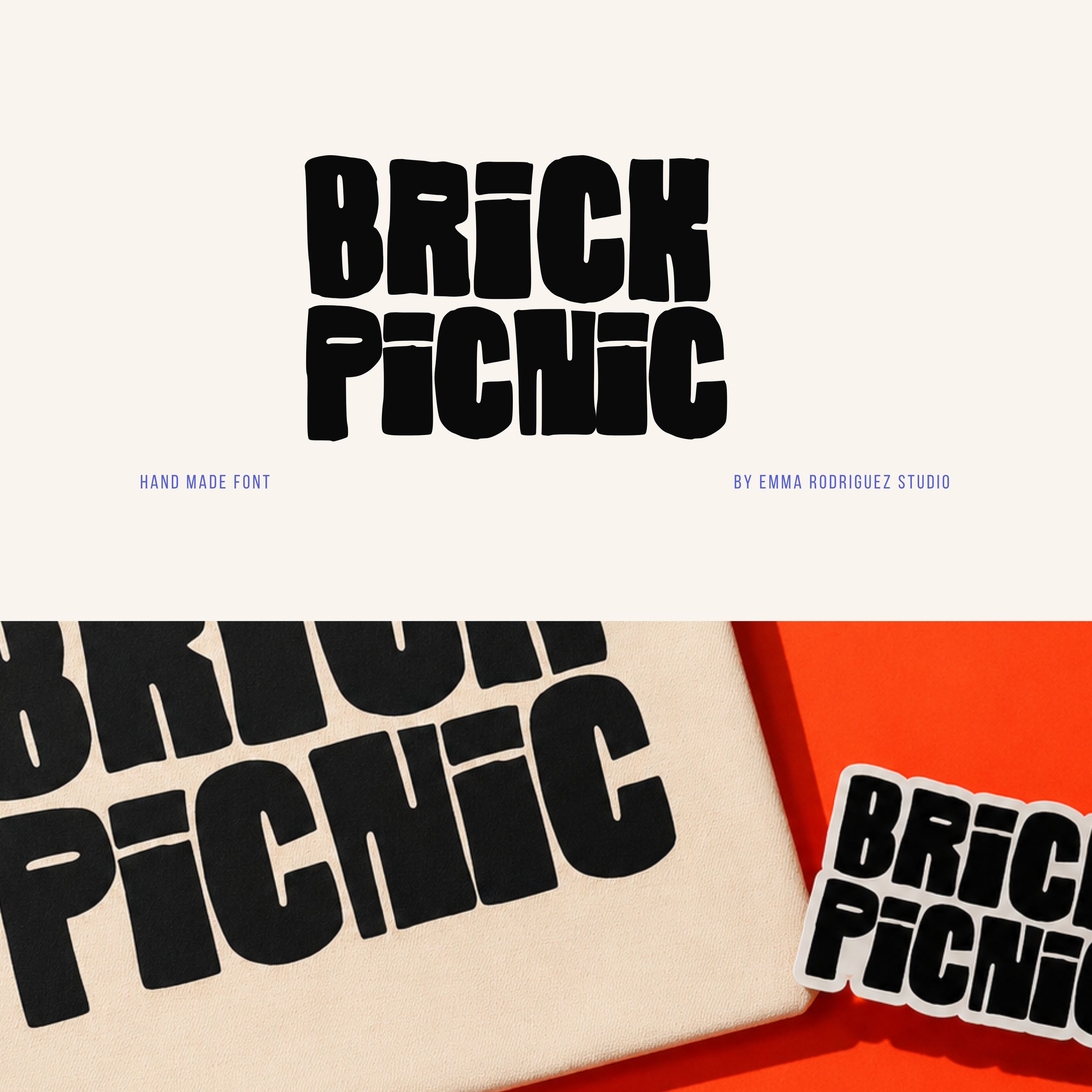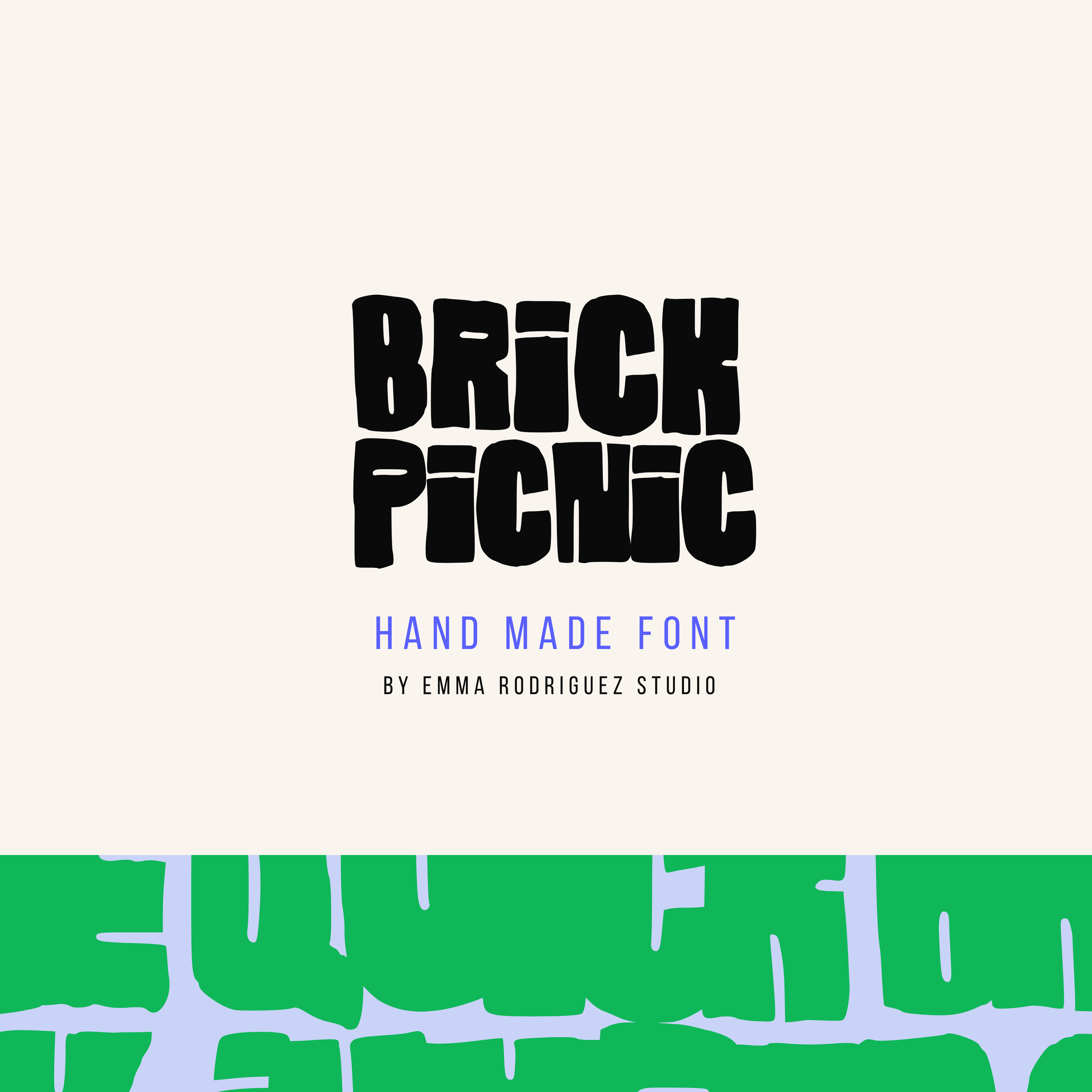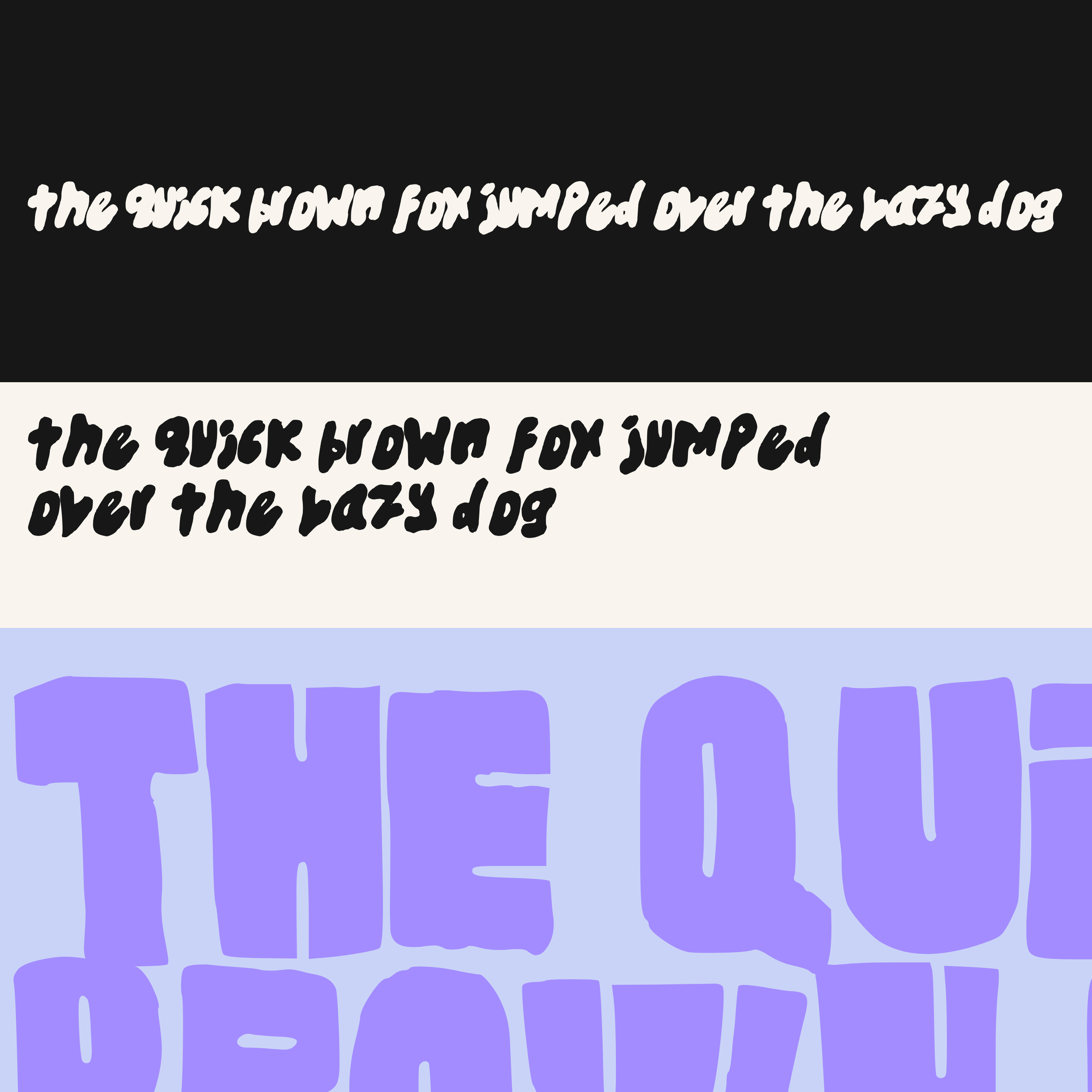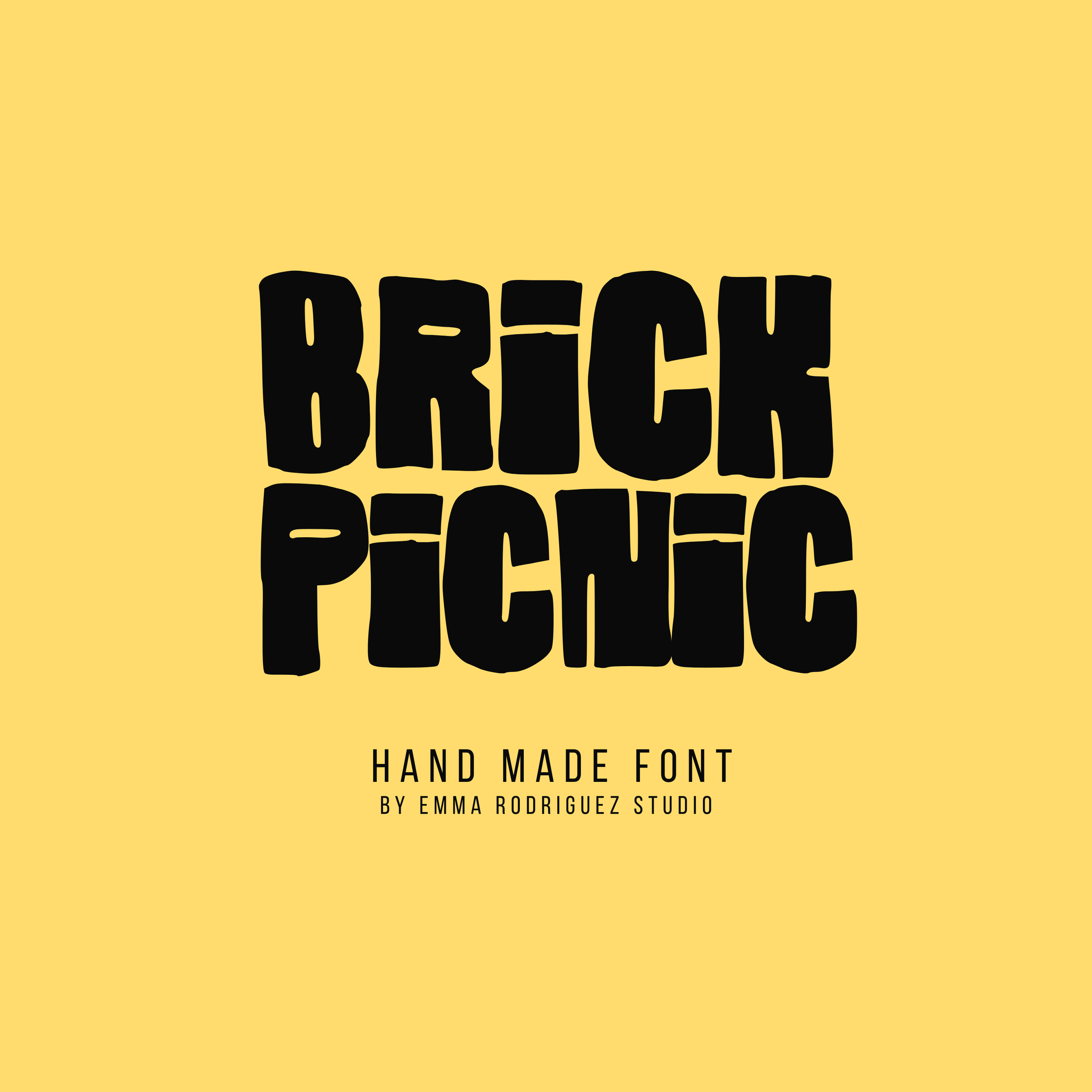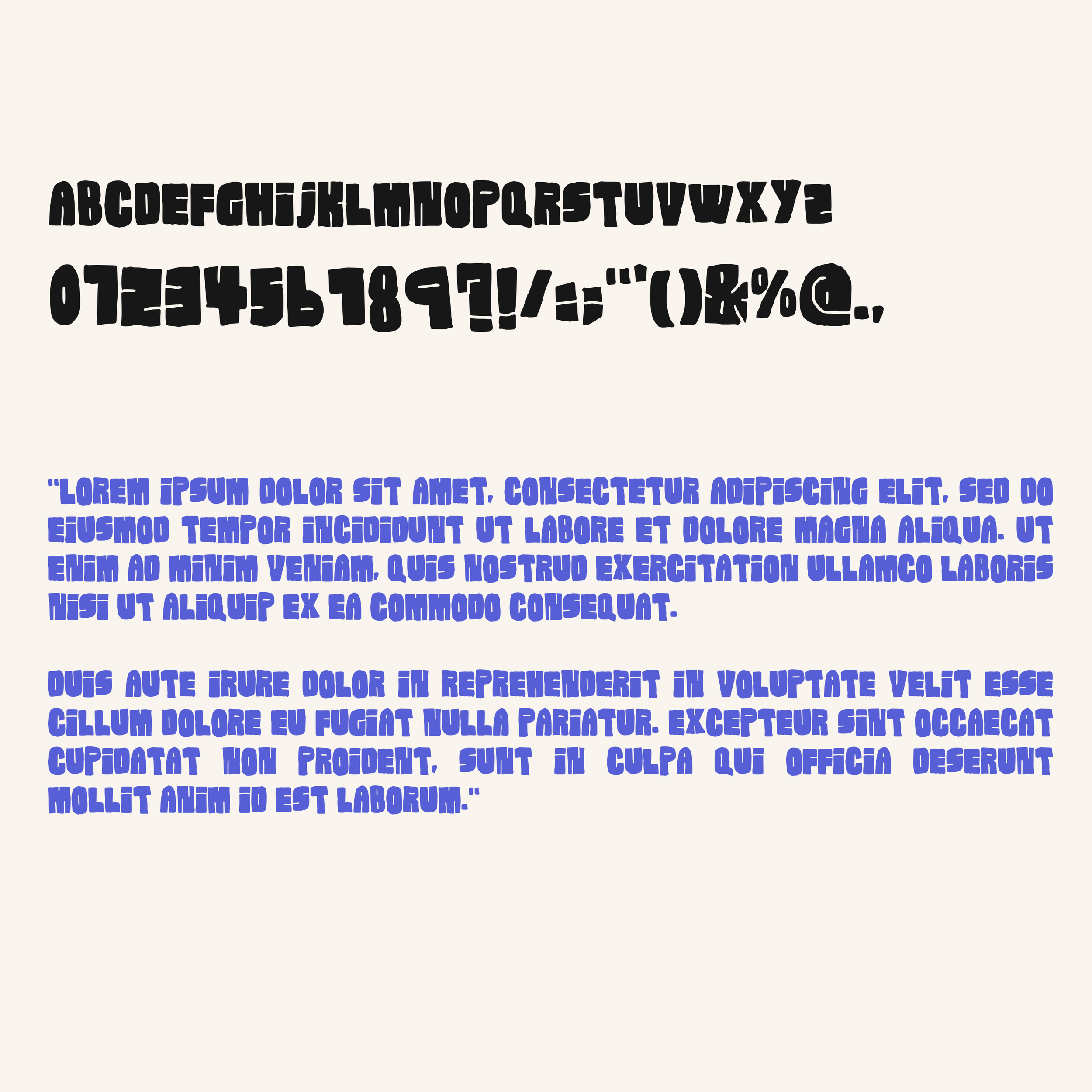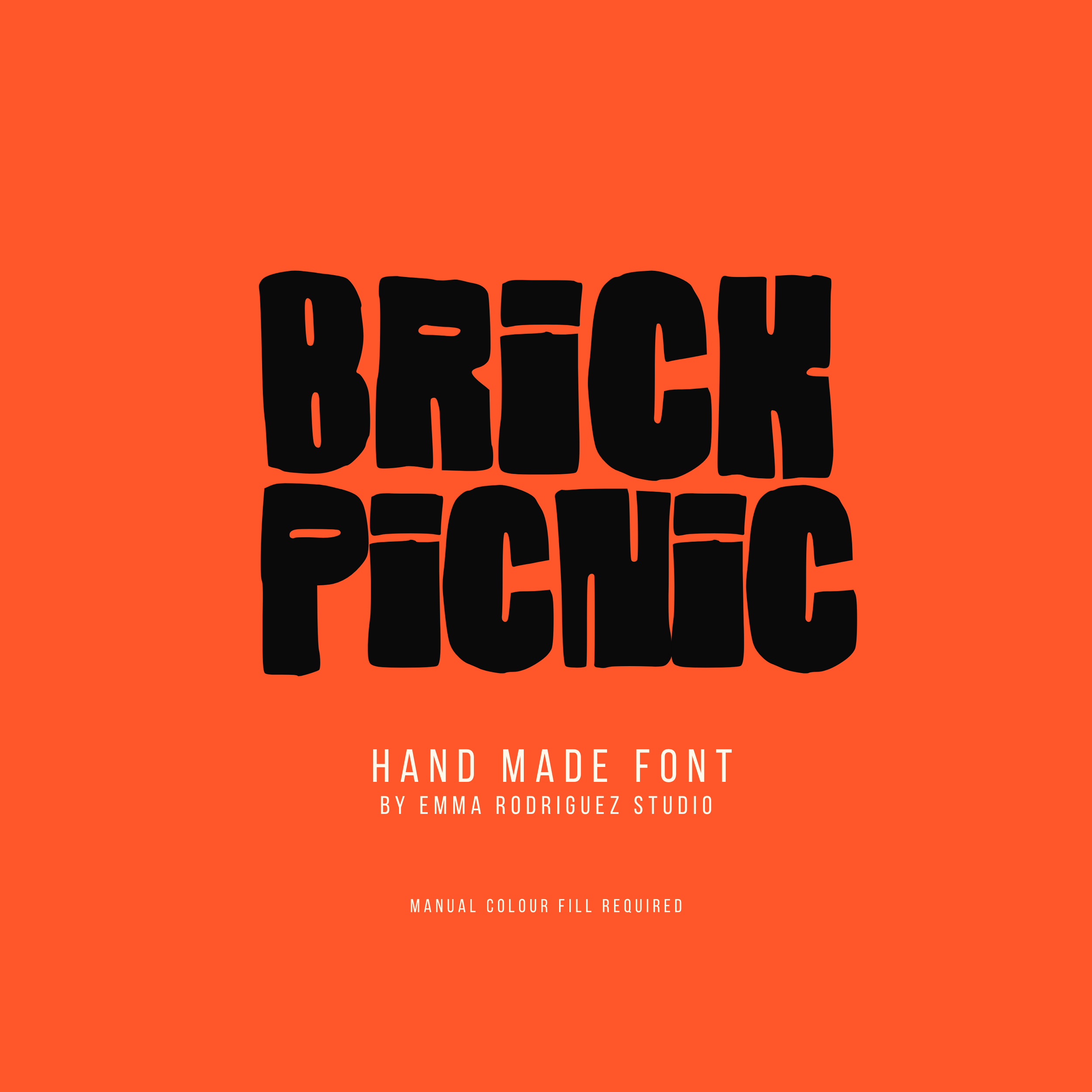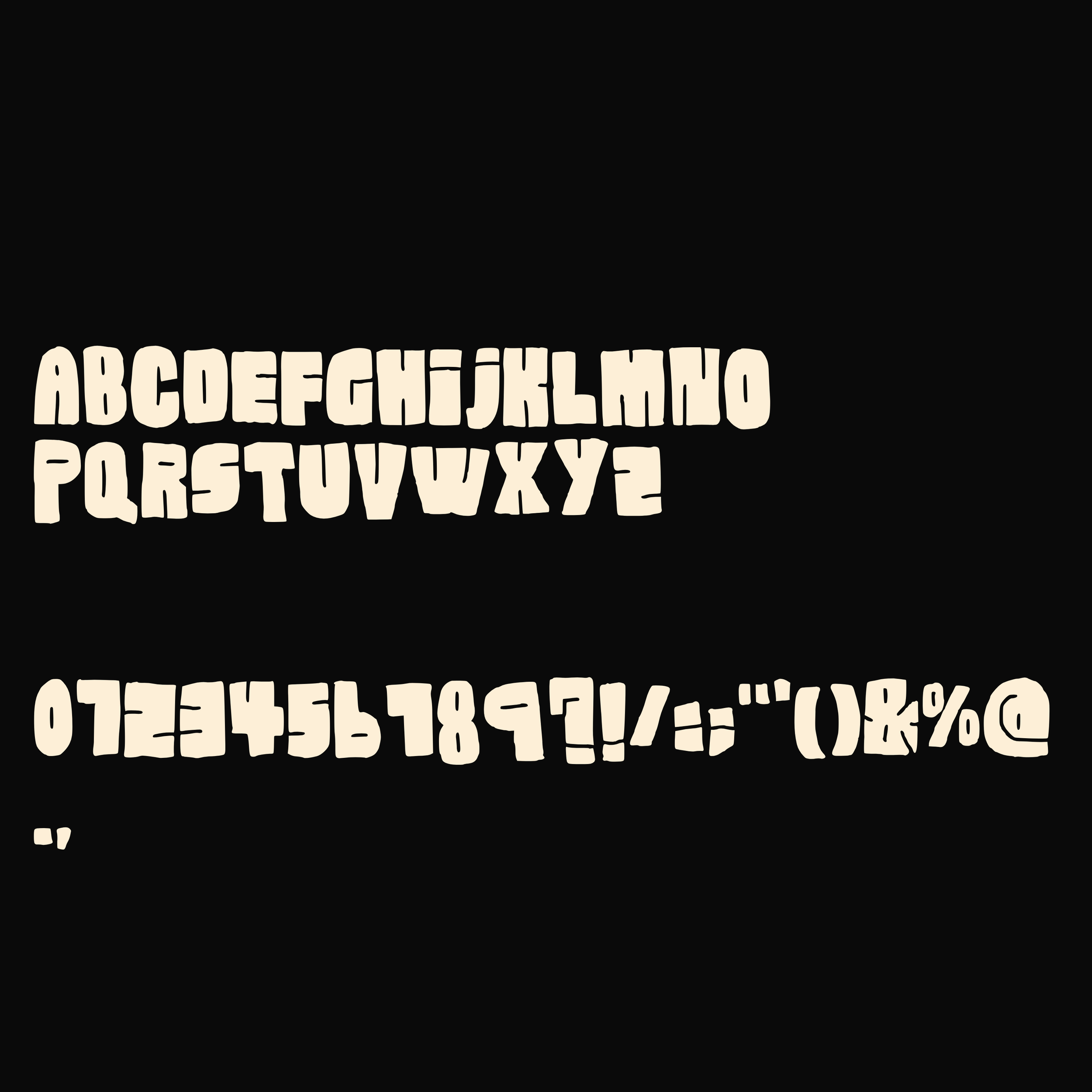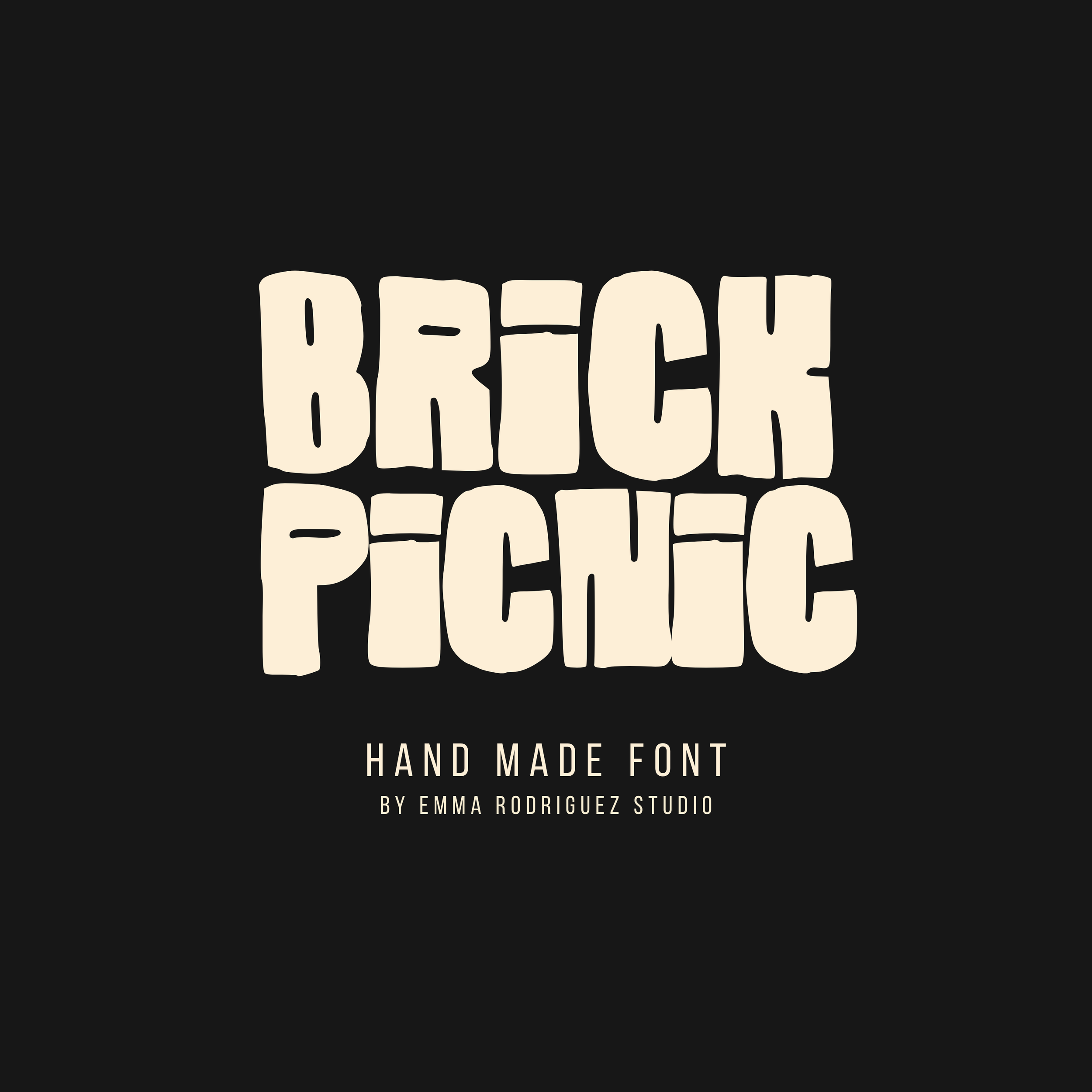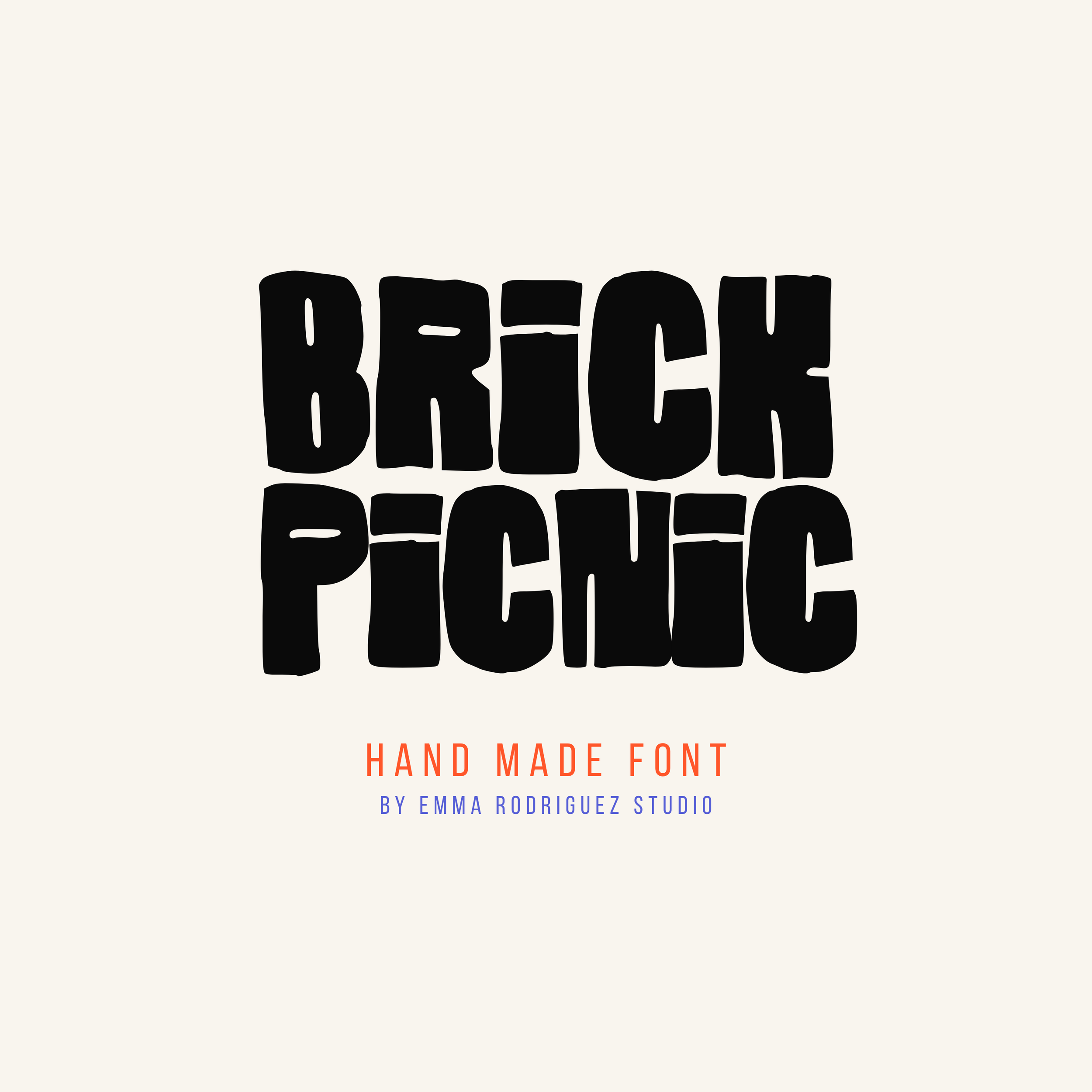
Brick Picnic Font - Chunky Block Type
Brick Picnic is a bold, chunky display font designed to make an impact. Built from oversized block letterforms with organic imperfections and a handmade feel, this typeface combines playful personality with strong visual weight.
Inspired by current trends in retro typography, handmade lettering, expressive branding, and bold editorial design, Brick Picnic brings a confident, eye catching presence to any creative project. Its thick letterforms, uneven details, and imperfect construction create typography that feels human, energetic, and full of character.
Whether you're creating branding, posters, packaging, merchandise, social content, or product designs, Brick Picnic is designed to help your work stand out from the crowd.
• Uppercase letters
• Numbers 0 to 9
• Basic punctuation
With intentional differences in baselines and kerning, this font is by no means designed to be perfect, but instead created to bring fun character and a genuine handmade feel throughout. If you are looking for perfectly aligned digital typography, this may not be the font for you. The handmade imperfections and uneven structure are intentional parts of the font design and help give the typeface its bold playful character.
Fonts by Emma Rodriguez Studio are made to have personality. Expect naive shapes, wonky details, playful imperfections and type that doesn’t take itself too seriously. They’re not designed for clean, minimal branding. They’re for bold, quirky, maximalist projects that need something a little stranger, sillier and more expressive.